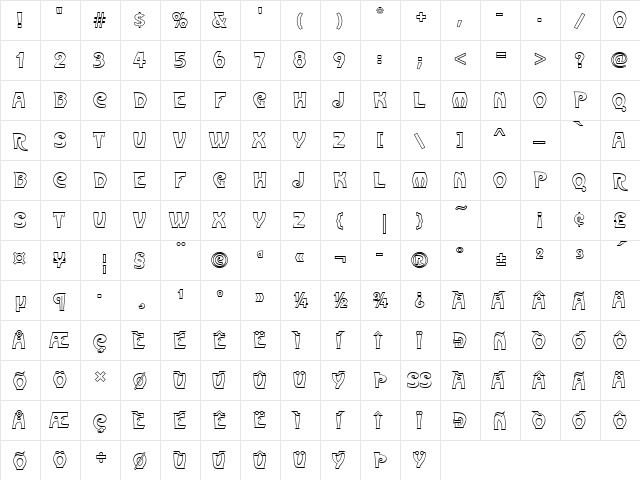
Metropolitaines Becker Outline Regular
Design Context for Metropolitaines Becker Outline Typeface
Metropolitaines Becker Outline is built around its visual character rather than neutral utility — its distinctive forms are designed to make an impression at display sizes.
Font Pairing: Pair with a clean neutral sans-serif for body copy to let Metropolitaines Becker Outline's character lead without overwhelming the composition.
Pro Tip: Use Metropolitaines Becker Outline exclusively at display sizes — it was designed to be seen, not read at length. Let a neutral companion handle body copy.